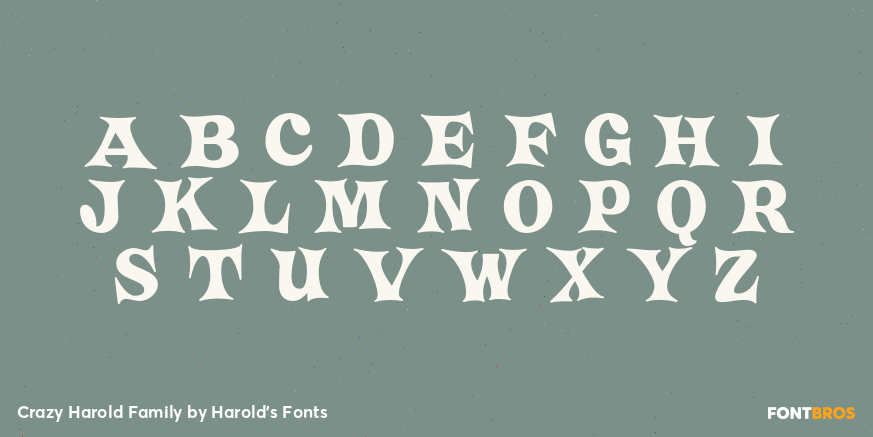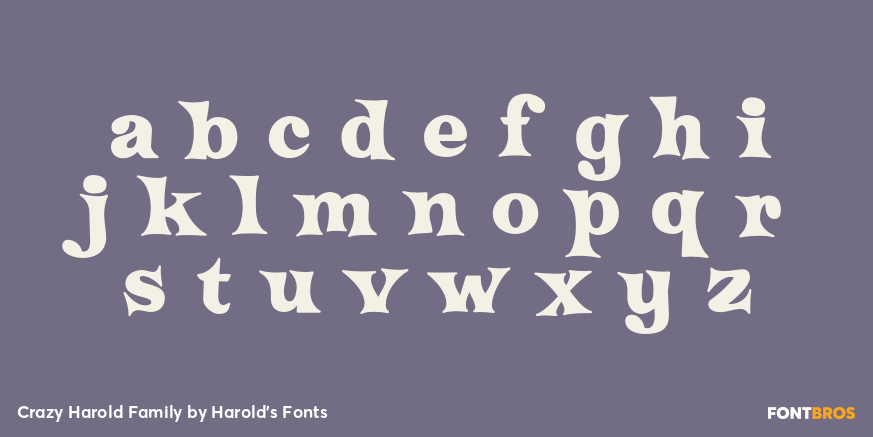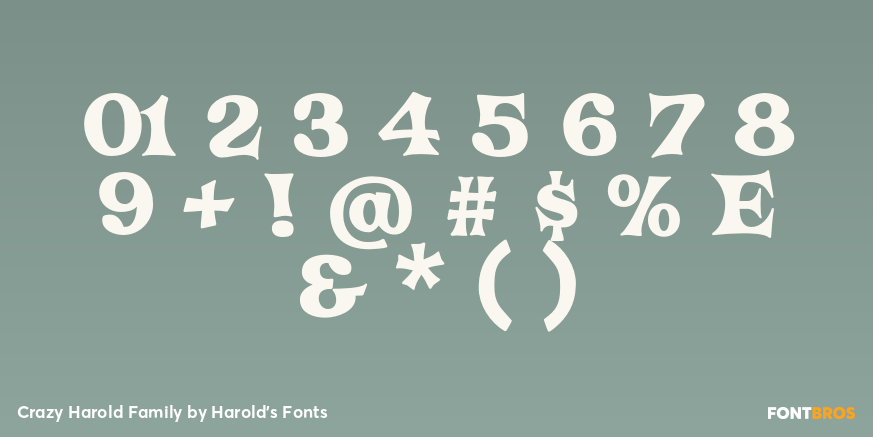
Crazy Harold Family
CRAZY HAROLD is a fun, retro-festive font. Inspired by an example of this name, as reproduced in Paul E. Kennedy's 1974 Modern Display Alphabets, I've redrawn the font and expanded the set to include useful Condensed and groovy Flair varieties as well. And Condensed Flair too!
Version 2.0 uses the Stylistic Alternates feature of Opentype to make the alternate characters easier to access, and includes an expanded character set and improved spacing and kerning.